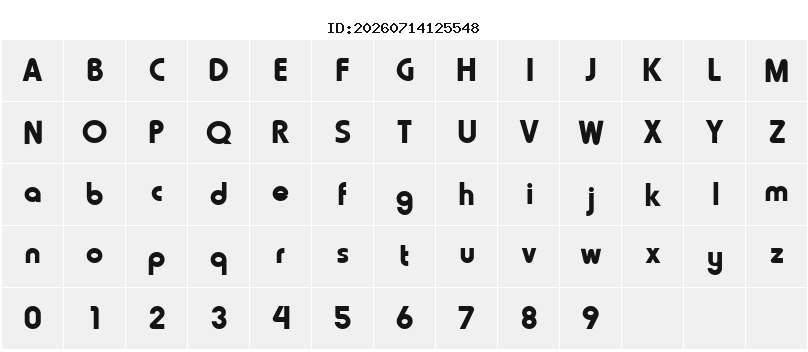
Harry Preview
• Font Name: Harry
• Font ID: Altsys Fontographer 3.5 Harry Bold
• Full Font Name: Harry Bold
• Version: Altsys Fontographer 3.5 11/25/92
• PostScript Name: HarryBold
About Harry.ttf
Harry.ttf is a modern, elegant sans-serif font designed for ultimate readability and visual harmony. Perfect for branding, headlines, web design, and print materials.